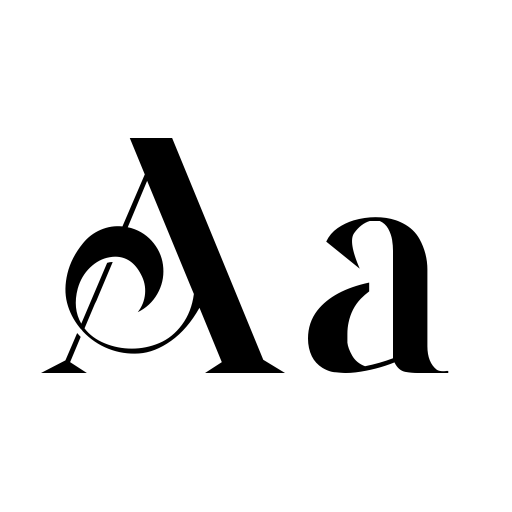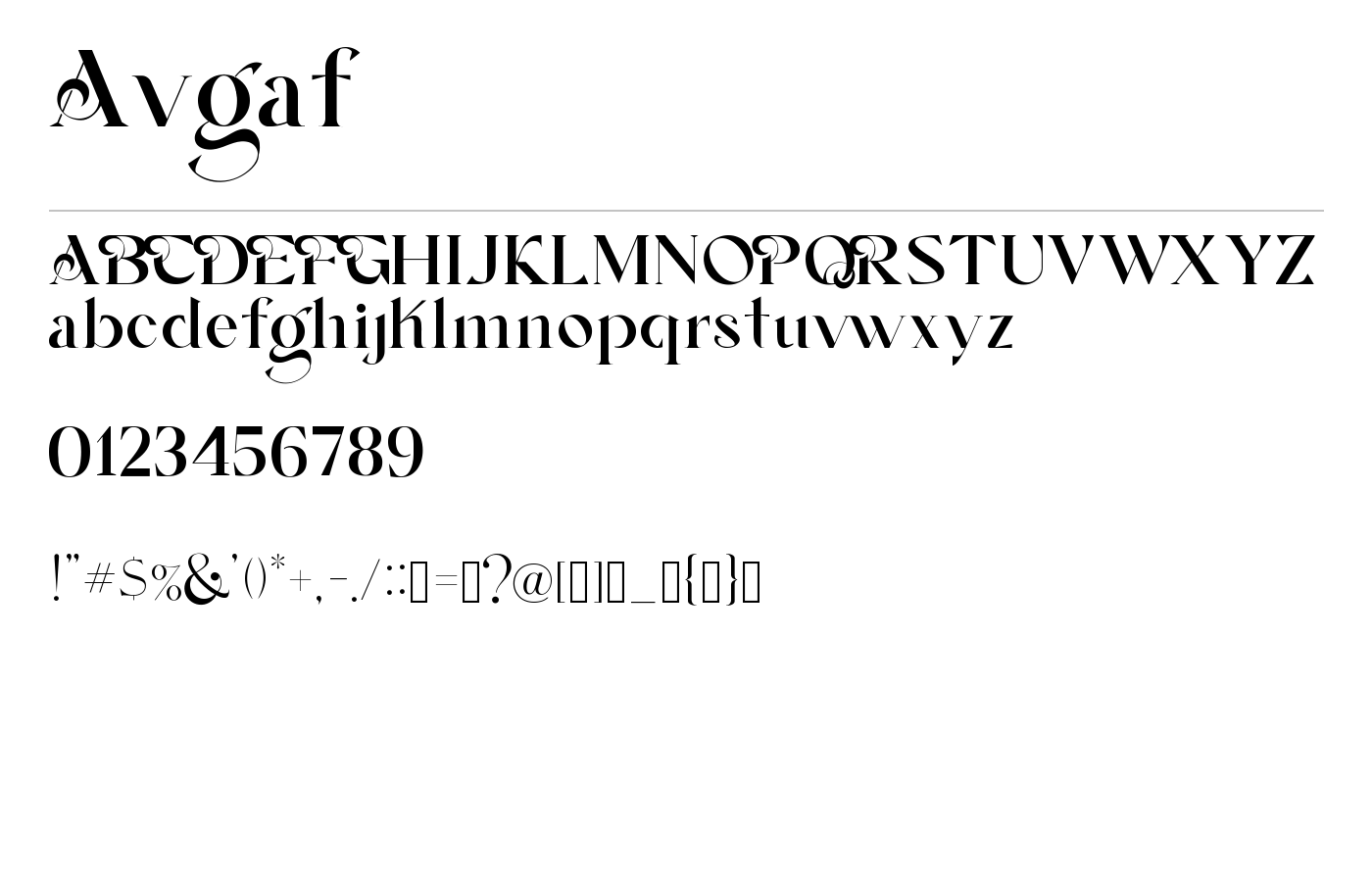
Avgaf is a stylish serif font with high contrast between thick and thin strokes, featuring elegant, sharp serifs and sophisticated swashes that add a decorative flair. Its overall design balances classic luxury with modern refinement, making it ideal for fashion branding, editorial headlines, and upscale logos where a unique, artistic touch is desired. This font stands out in settings that require a graceful and distinctive appearance to convey elegance and creativity.
Avgaf Font
About Avgaf Font